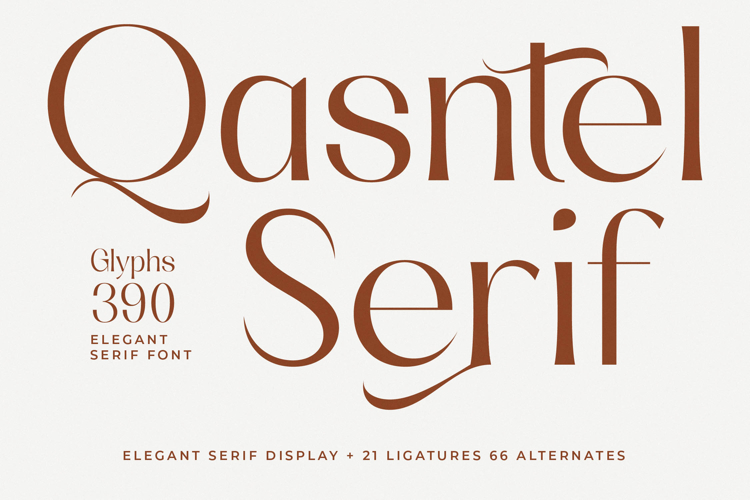
Qasntel - Elegant Serif Display
Elevate your designs with the unparalleled elegance of Font Qasntel - Elegant Serif Display Serif Display. This exquisite typeface commands attention with its high-contrast strokes and graceful curves, embodying a perfect blend of classic sophistication and modern flair. Designed as a premier display serif, it provides an immediate sense of luxury and refinement, making every headline and logo truly stand out.
Unlock a world of rich typographic possibilities with Font Qasntel - Elegant Serif Display Serif Display, featuring an impressive collection of 21 ligatures and 66 alternates. These extensive design options empower creators to craft bespoke design solutions, ensuring unique and captivating headlines and branding elements. Its versatile character set makes it an indispensable tool for achieving truly sophisticated display capabilities in any project.
With its extensive multilingual support, Font Qasntel - Elegant Serif Display adapts seamlessly across global markets, making it incredibly versatile for international projects. This ensures your message maintains its consistent and elegant visual identity no matter the language, making it ideal for global brands aiming for worldwide recognition and impact.
Font Qasntel - Elegant Serif Display is the definitive choice for projects demanding premium aesthetics. It is perfect for luxury branding, high-end packaging, editorial design in fashion and lifestyle magazines, elegant invitations, and sophisticated web design. Invest in this font to add an undeniable touch of class and refinement to your visual communication, creating truly impactful visuals.